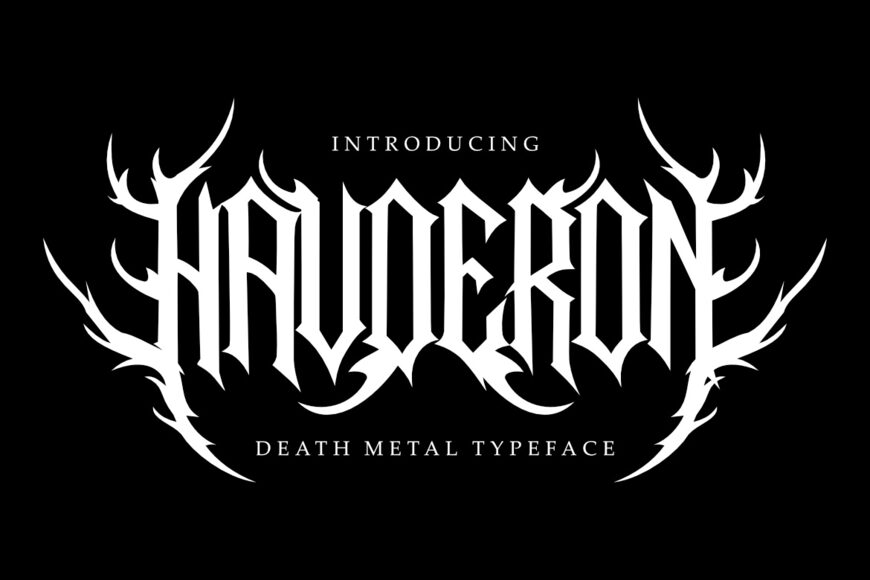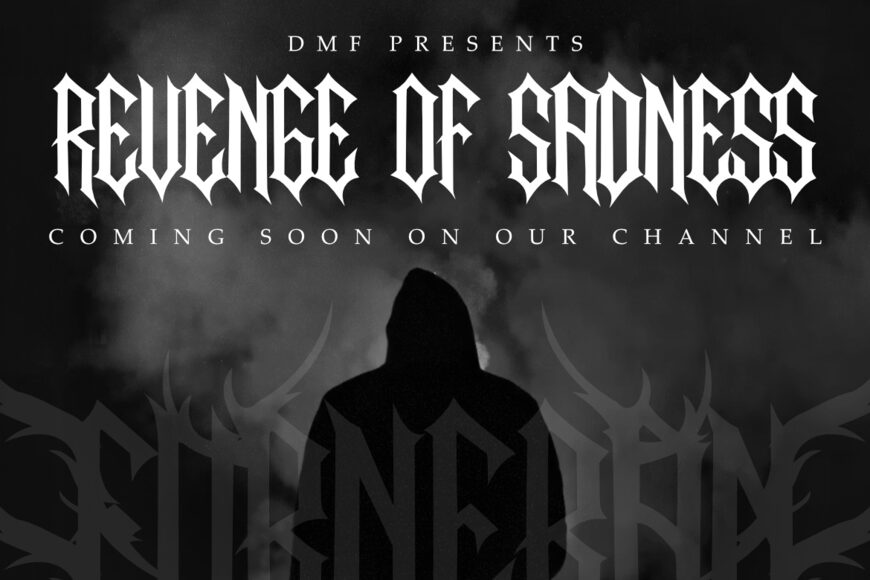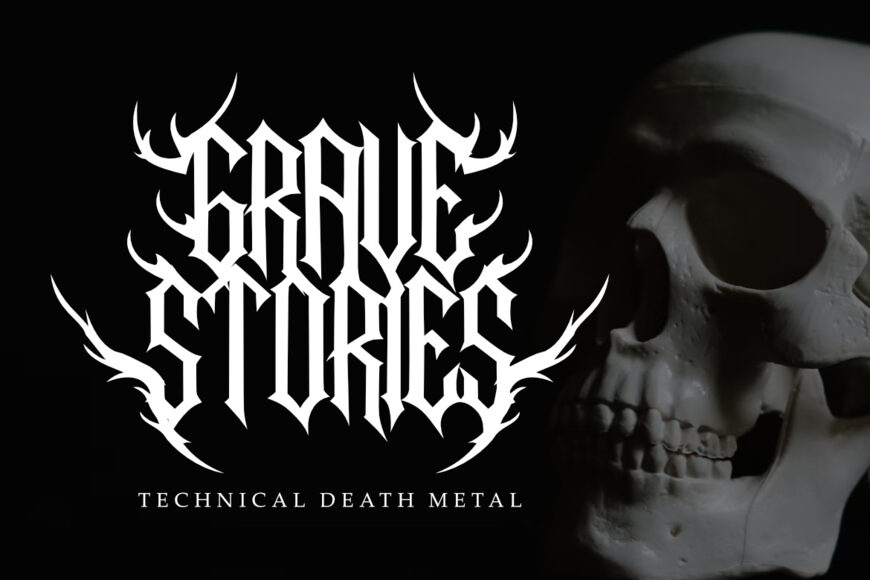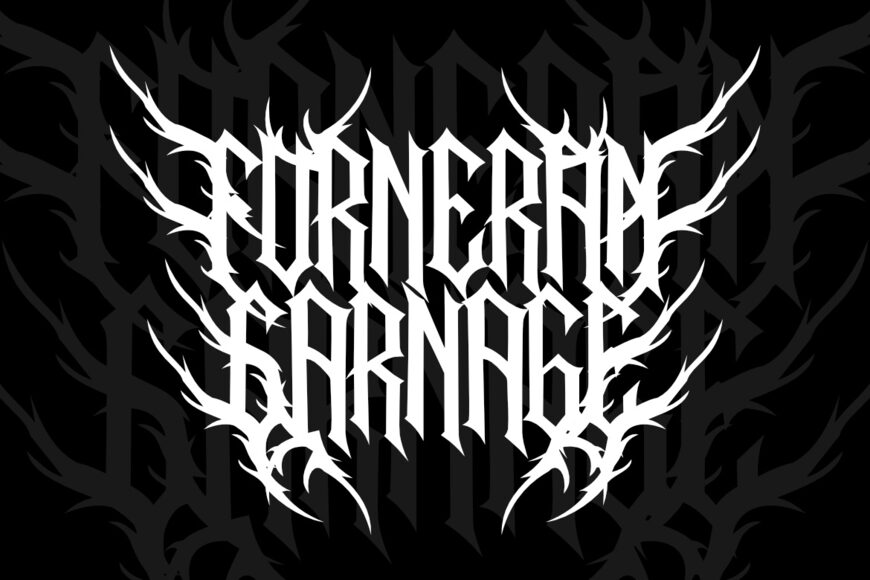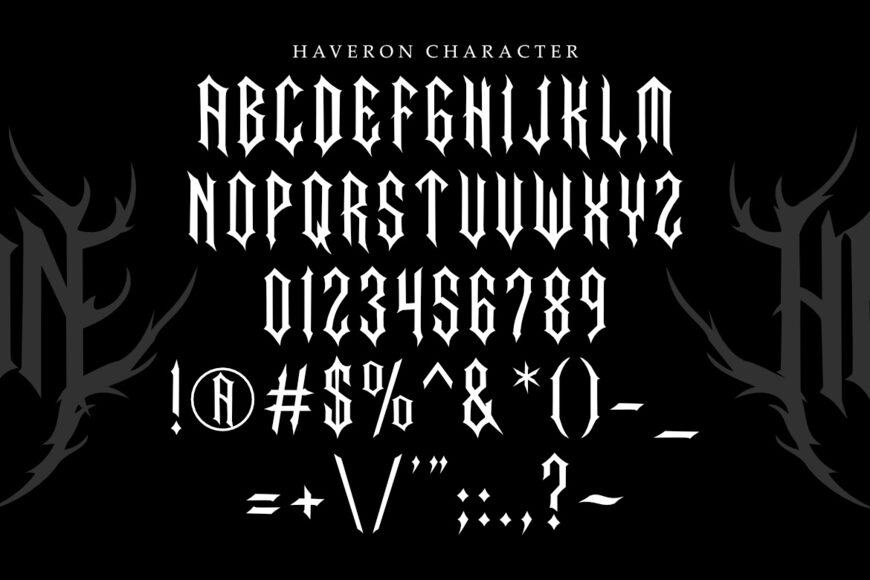
Haveron Font
Haveron is an intense, raw, and aggressive death metal typeface engineered for extreme music culture and dark visual arts. Inspired by classic blackletter typography and underground metal aesthetics, this font features sharp spiky letterforms, intricate roots, and jagged ornaments that radiate pure dark energy.
Whether you are designing iconic band logos, extreme metal album covers, festival posters, dark streetwear apparel, or horror merchandise, Haveron ensures your design commands a formidable and authoritative presence.